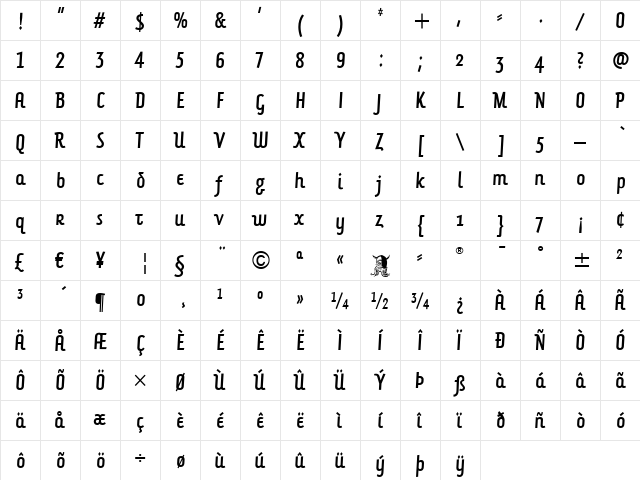
Forkbeard Condensed ITC Condensed
Design Context for Forkbeard Condensed ITC Typeface
Forkbeard Condensed ITC is a composed and adaptable typeface that performs quietly and consistently across a wide range of design contexts. Its narrow stance lets it pack a punch even in space-constrained designs.